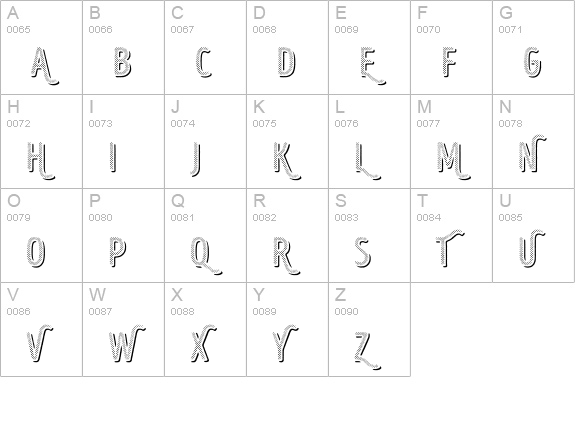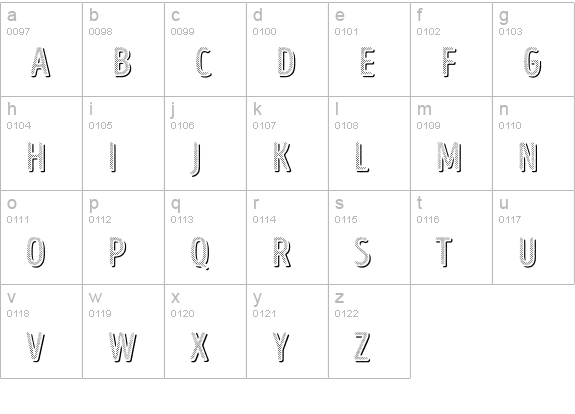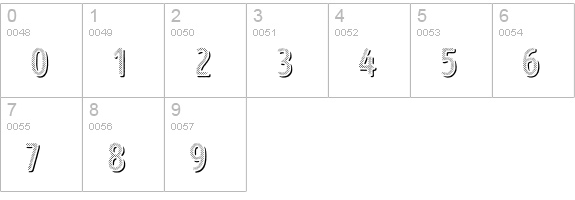
Intro Head B UC H1 Shade Font Details
Intro Head B UC H1 Shade font is a stylish and modern typeface that exudes an air of sophistication and elegance. Its bold and eye-catching design makes it perfect for headlines, titles, and other display purposes. The unique shading effects add depth and dimension to your text, making it stand out from the crowd. Best of all, Intro Head B UC H1 Shade font is available for free download at FontsMarket.com. Whether you're a designer looking to add a touch of flair to your projects or a creative looking for a distinctive typeface for your personal use, this font is sure to impress. Don't miss out on the opportunity to enhance your designs with this stunning and versatile font. Download Intro Head B UC H1 Shade font today and take your typography to the next level!